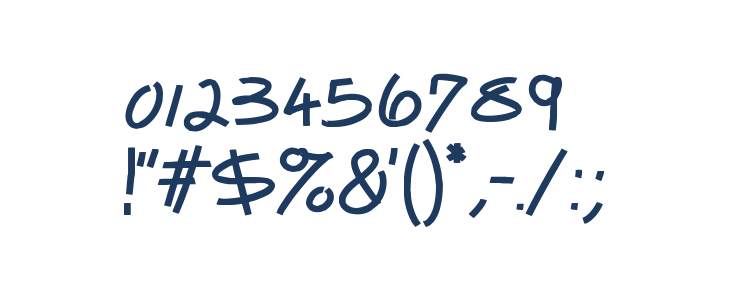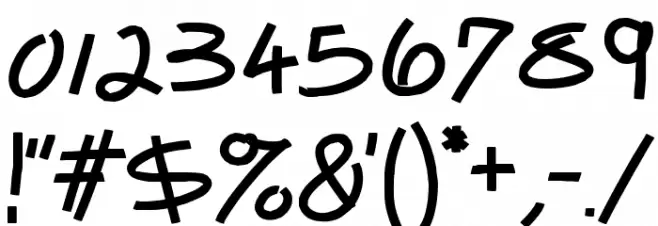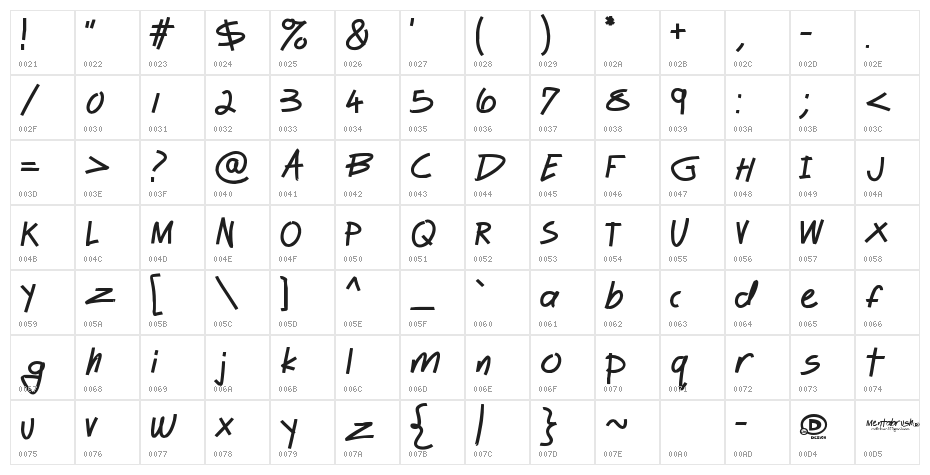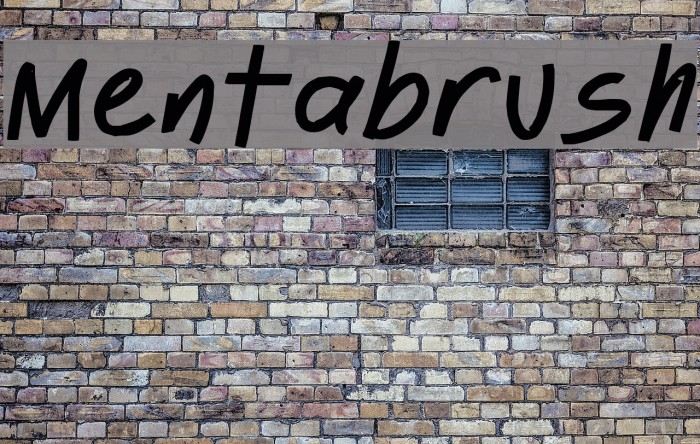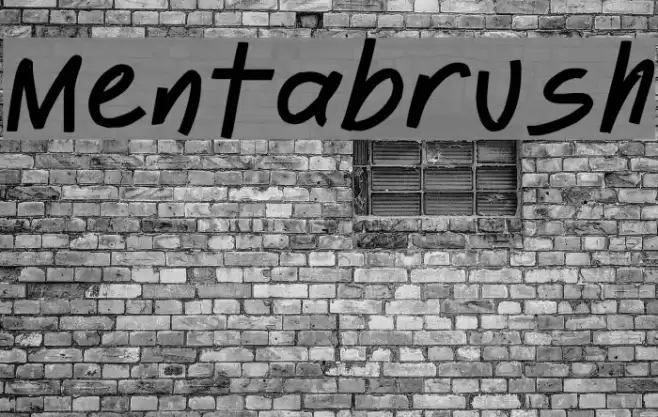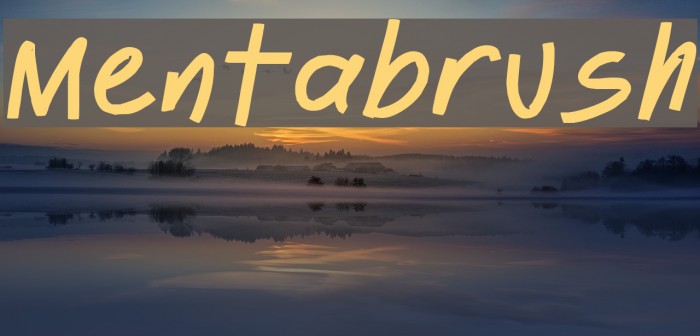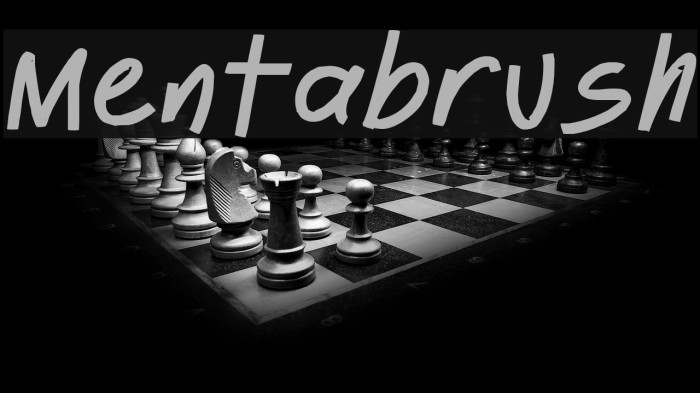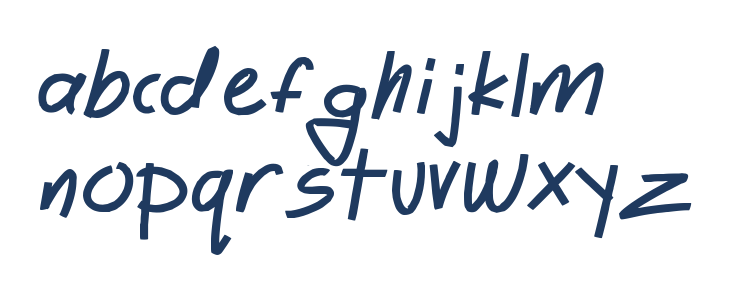
Mentabrush Font
Mentabrush Description
This font exudes a playful and energetic vibe, characterized by its brush-like strokes that give it a handwritten appearance. The letters are slightly slanted, adding a dynamic feel, while the varying stroke thicknesses contribute to its casual and informal style. The uppercase letters are bold and prominent, while the lowercase letters maintain a consistent flow, enhancing readability. Numbers and special characters are crafted with the same lively brush effect, ensuring a cohesive look across all elements. This font is perfect for projects that require a personal touch, such as invitations, greeting cards, or creative branding materials.
| Use Case | Headlines, Logos, Artistic projects |
| Proposed Projects | Ideal for invitations, greeting cards, creative branding, and artistic projects. |